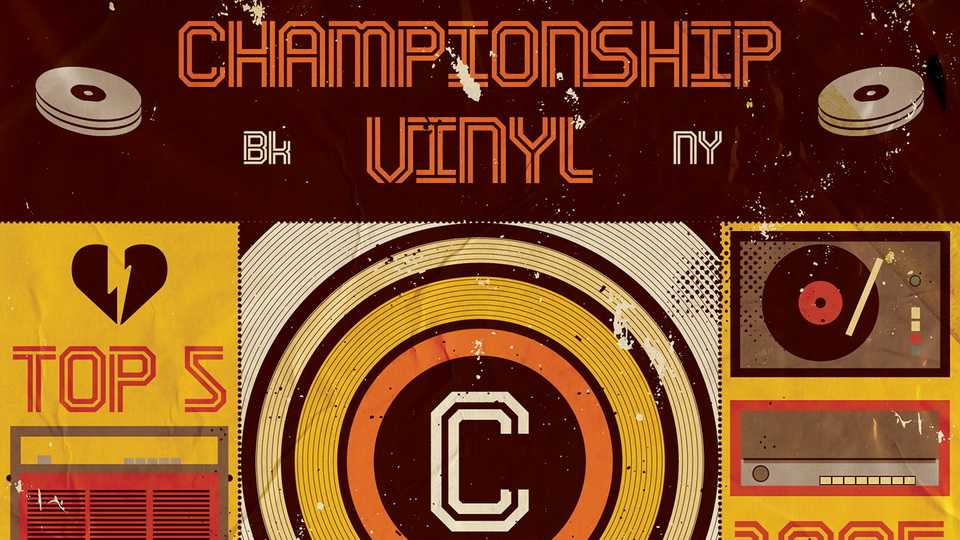
Download Wim Pro font, a display typeface influenced by sports letterings, typographic decals from the 70s and of course, the inspiring work of Wim Crouwel.